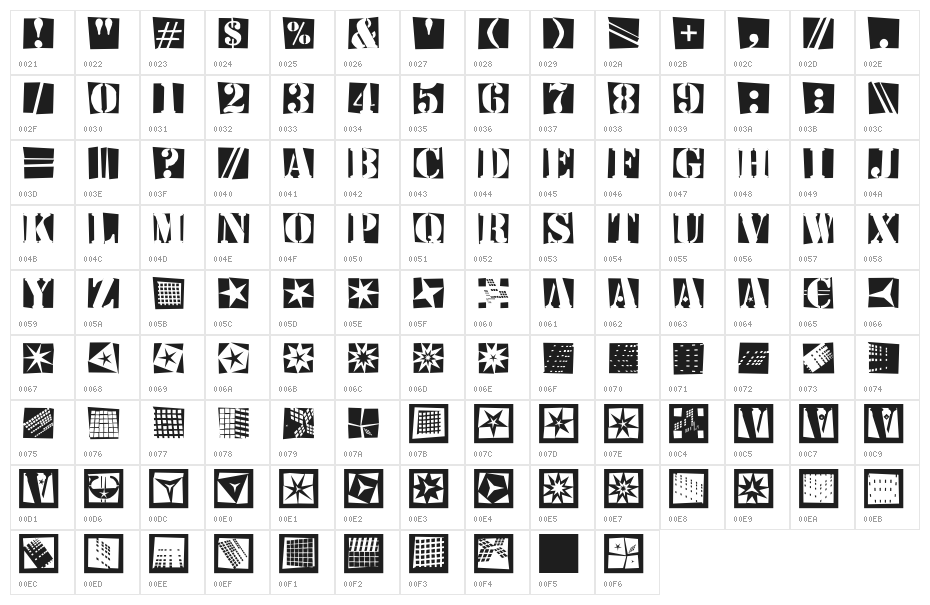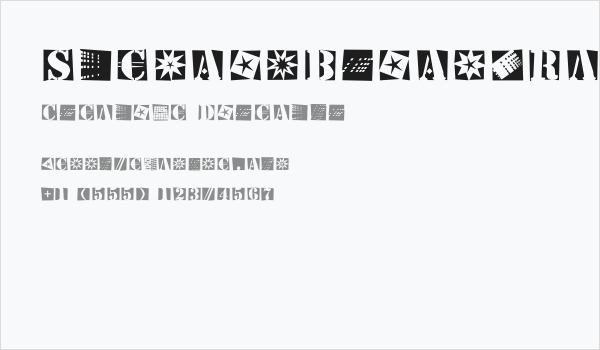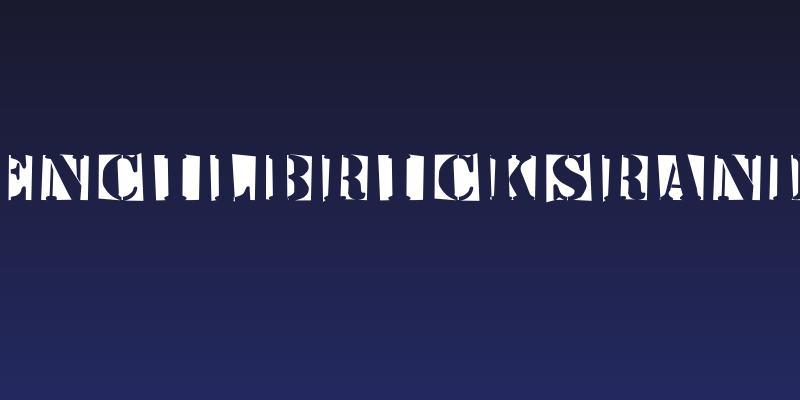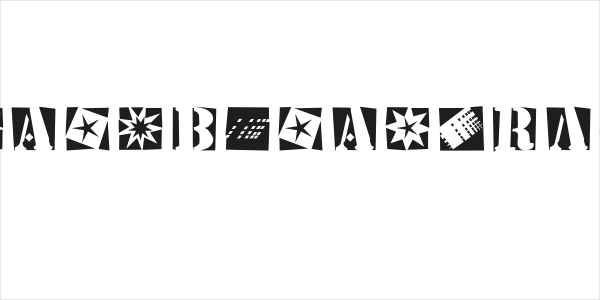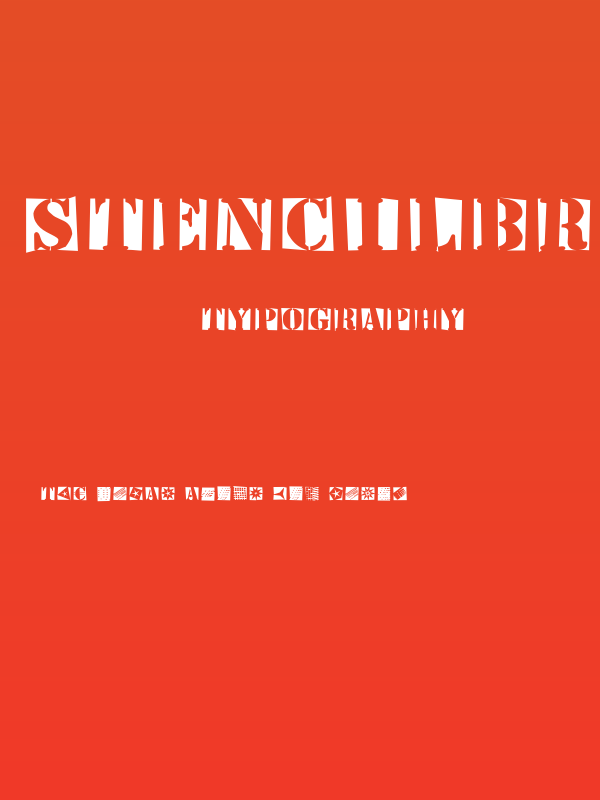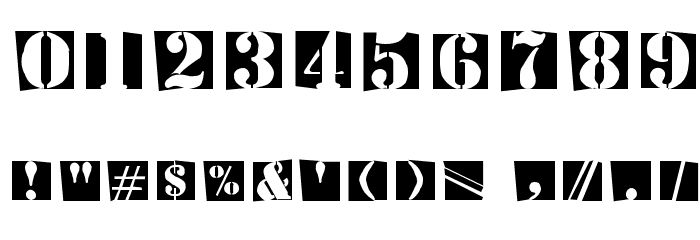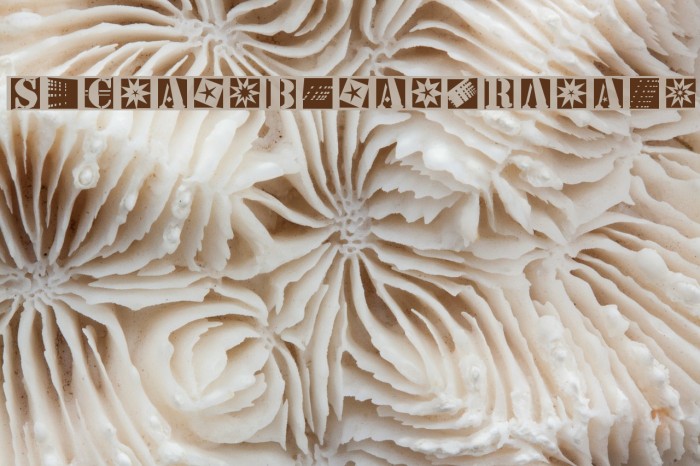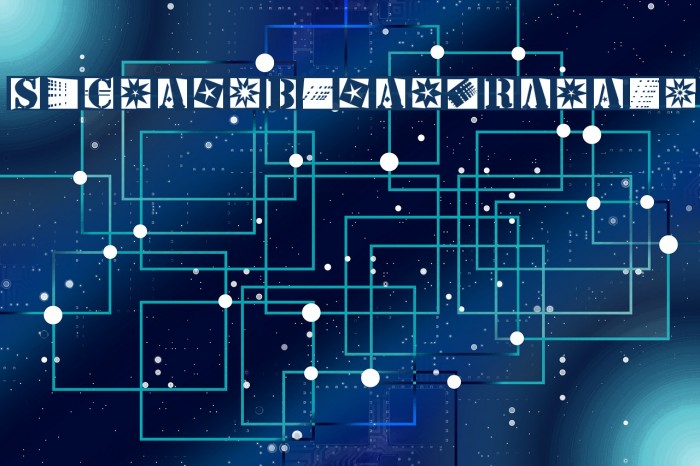
StencilBricksRandom Font
StencilBricksRandom Description
This font features a bold, stencil-like design with a unique twist. Each character is composed of solid, geometric shapes that create a sense of movement and energy. The letters are fragmented and appear as if they are constructed from bricks or tiles, giving them a rugged, industrial feel. The uppercase and lowercase letters maintain a consistent style, while the numbers and special characters follow the same design principles. This font is highly decorative and stands out with its high contrast and distinctive appearance, making it ideal for eye-catching designs.
| Overall Style | Modern, Industrial |
| Proposed Projects | Ideal for urban-themed posters, street art designs, branding for construction or tech companies, and edgy editorial layouts. |